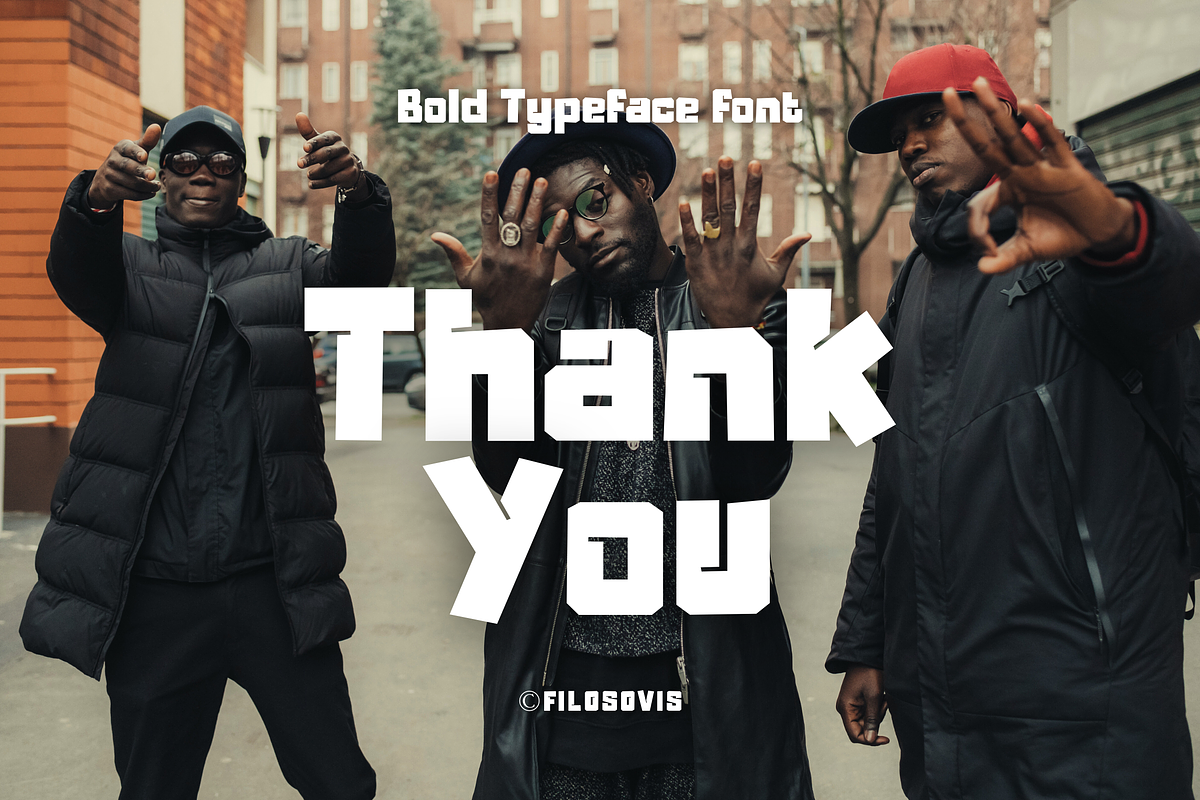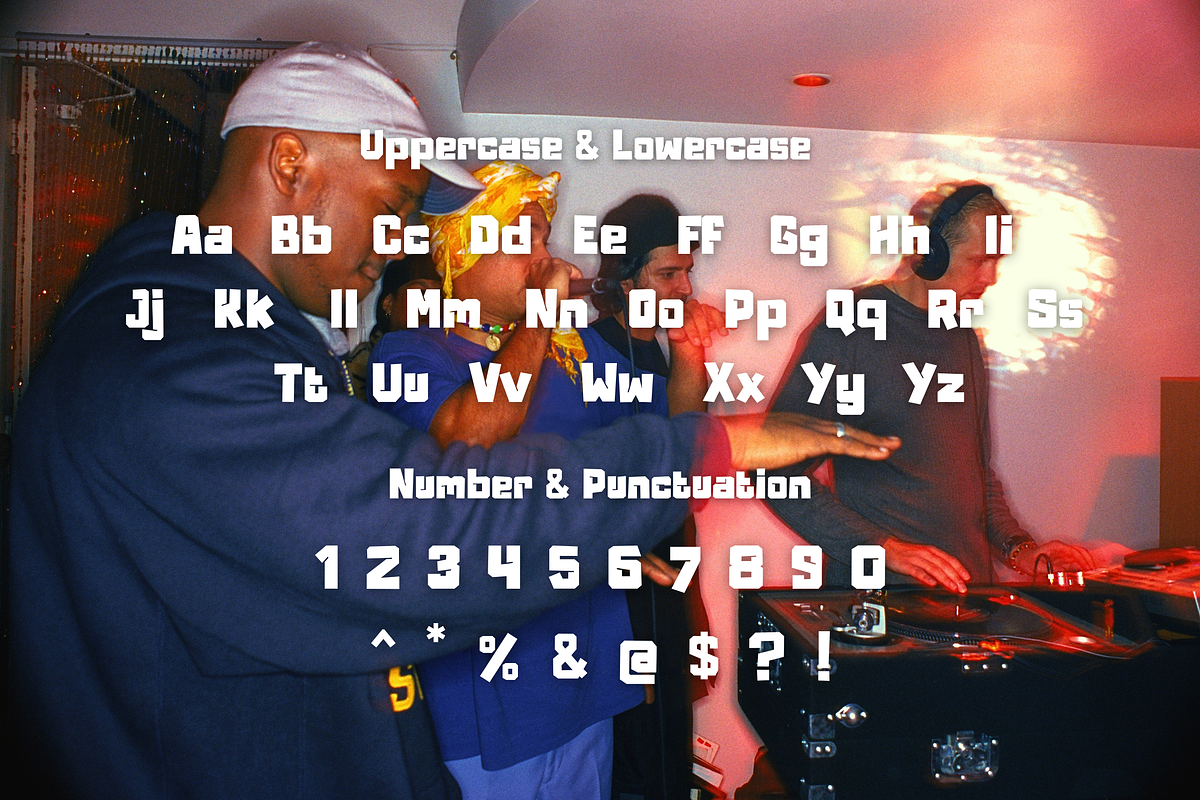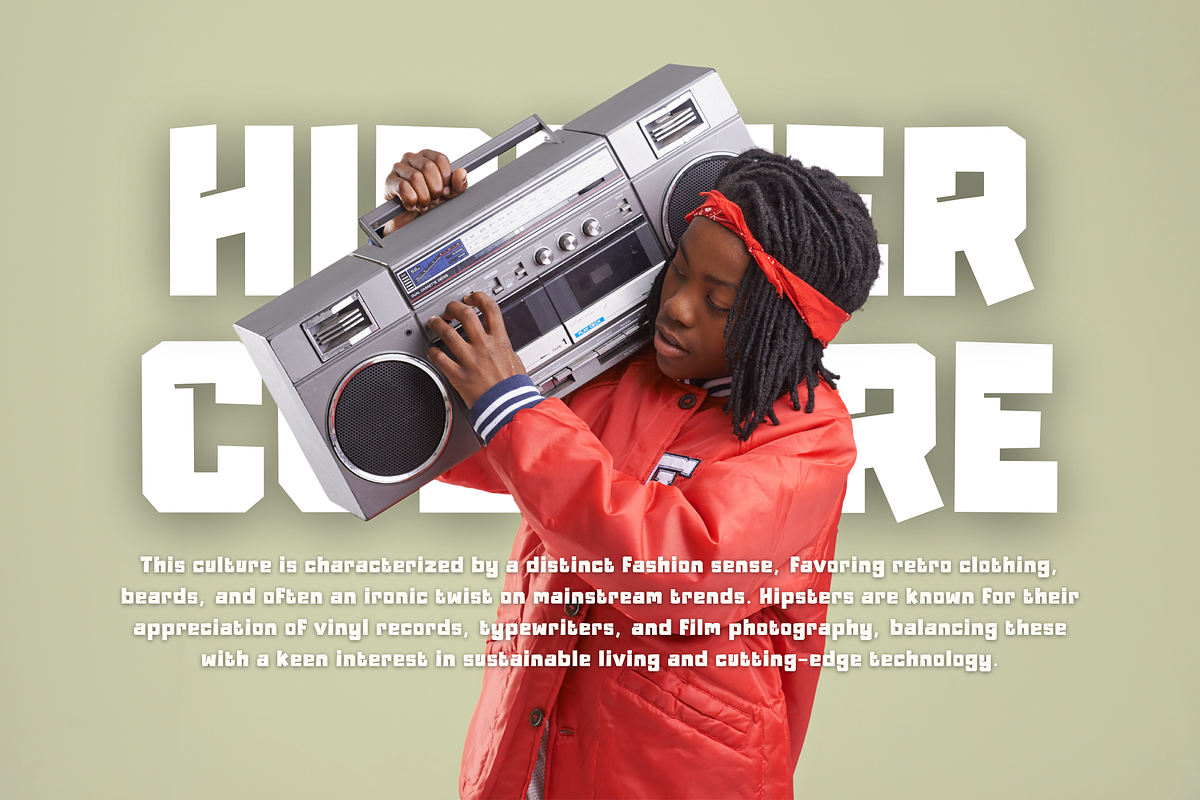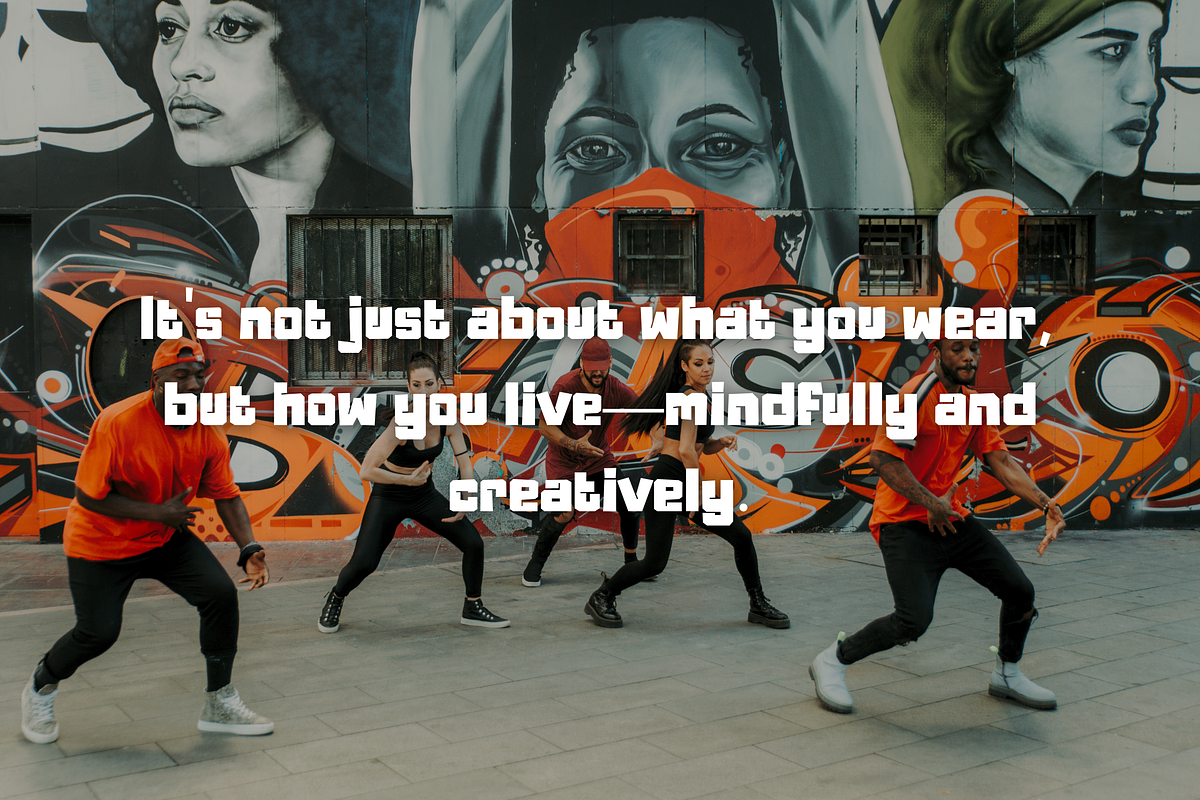
Biyawak | Bold Typeface Font
Biyawak is a bold typeface font that adds a playful twist to any design. With its whimsical letterforms and unique charm, it's perfect for eye-catching headlines, vibrant posters, and playful branding projects. Infuse your creations with joy and personality with Biyawak!